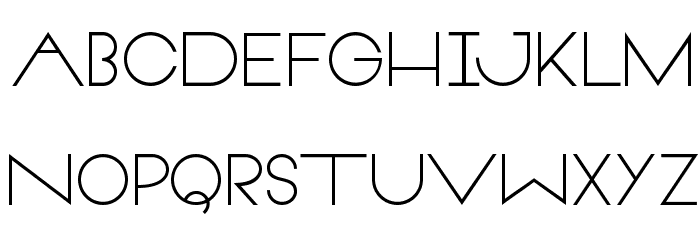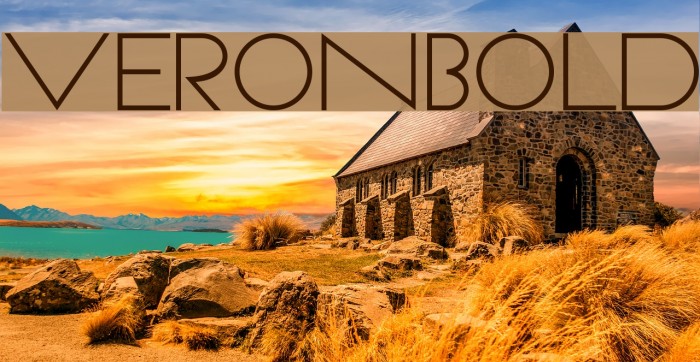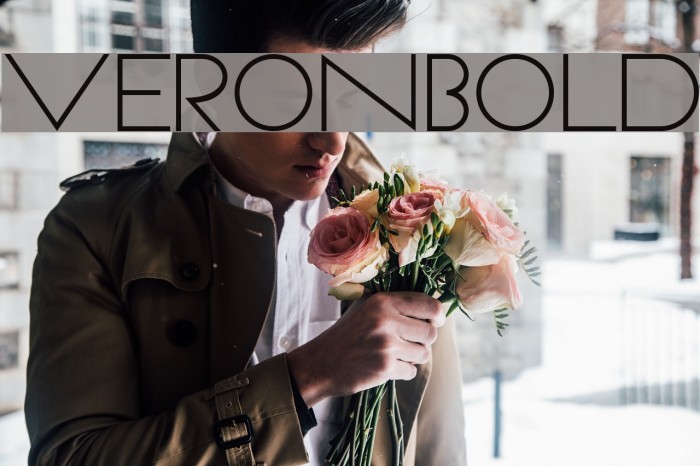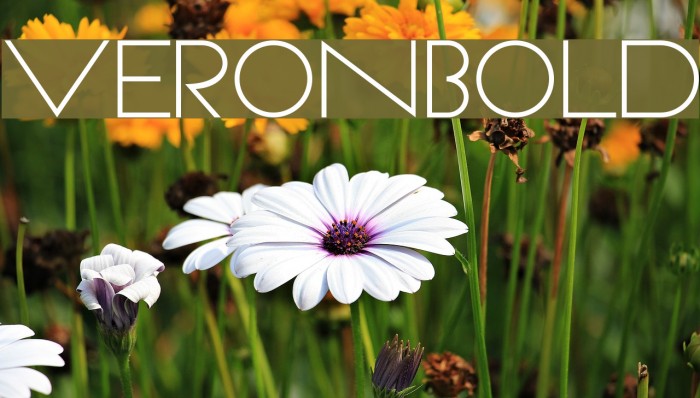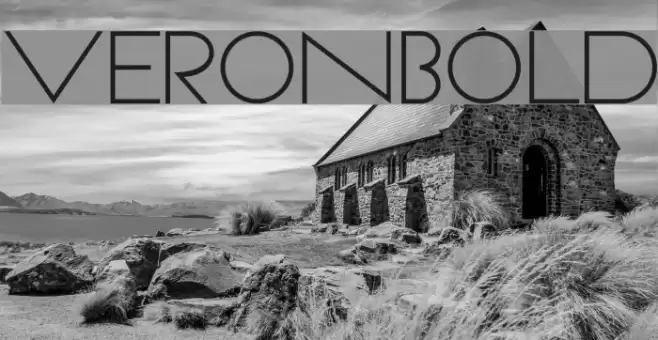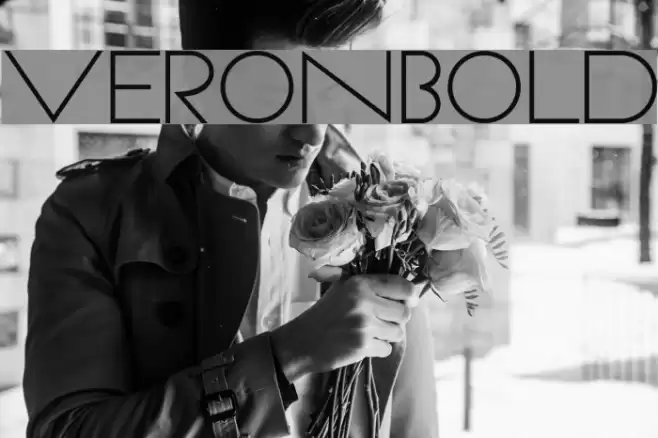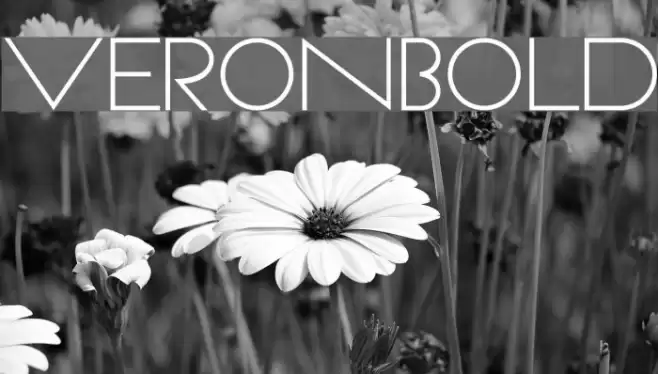
VeronBold Font
This font features a modern and geometric design with clean lines and sharp angles. The uppercase letters are characterized by their minimalist structure, often using straight lines and acute angles to form each character. The lowercase letters maintain a similar aesthetic, providing a cohesive look across different text sizes. The numerals are consistent with the overall geometric theme, ensuring readability and style. Special characters are designed to complement the alphabet, maintaining the same sleek and contemporary appearance. This font is ideal for projects that require a modern and sophisticated touch.
A modern, geometric font with clean lines and sharp angles.